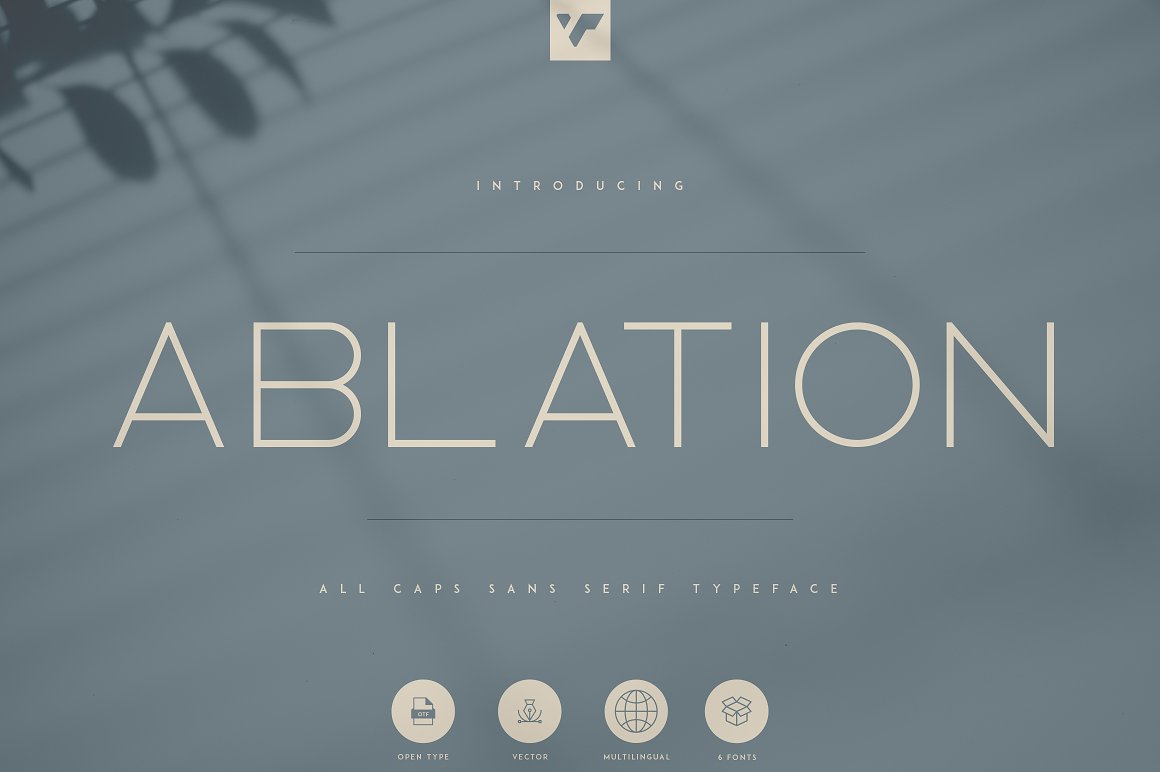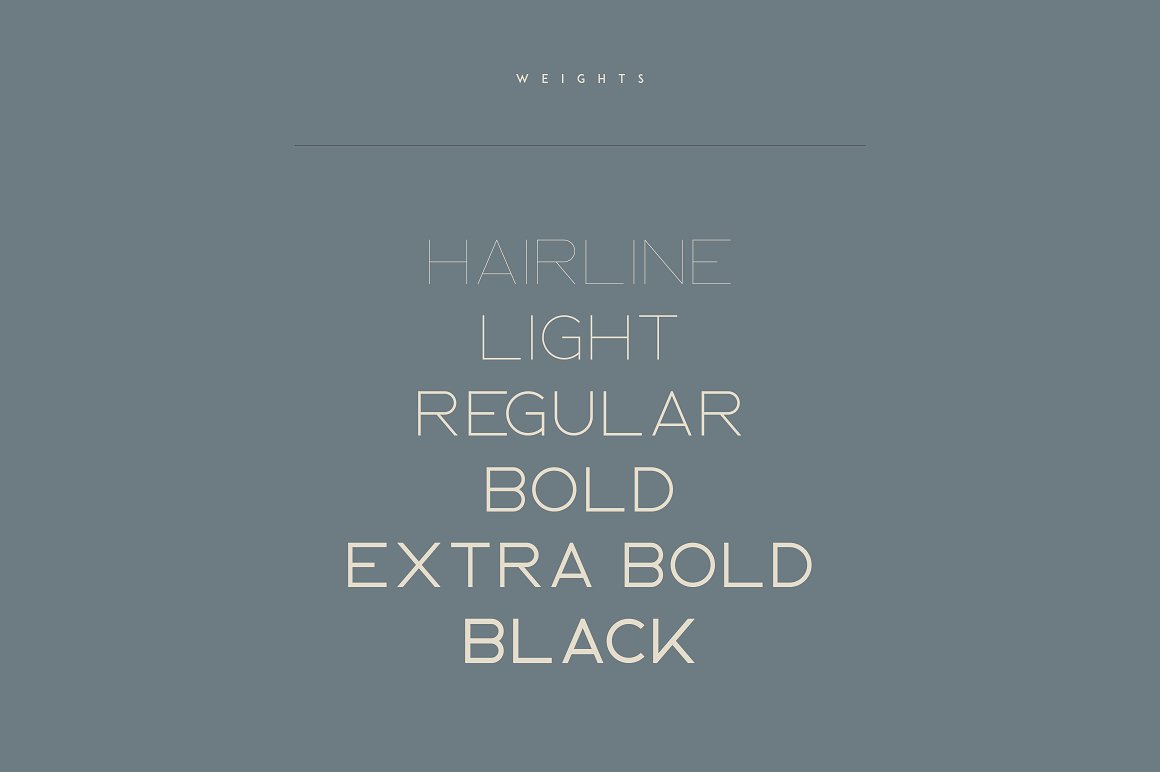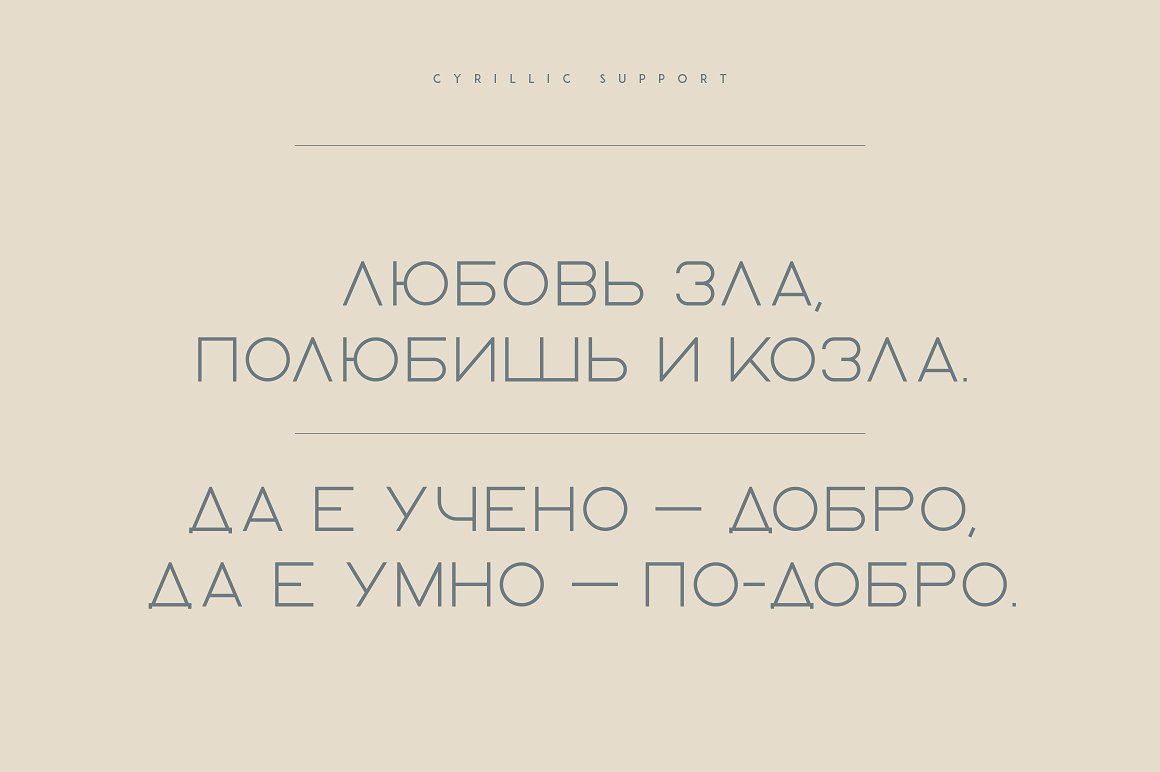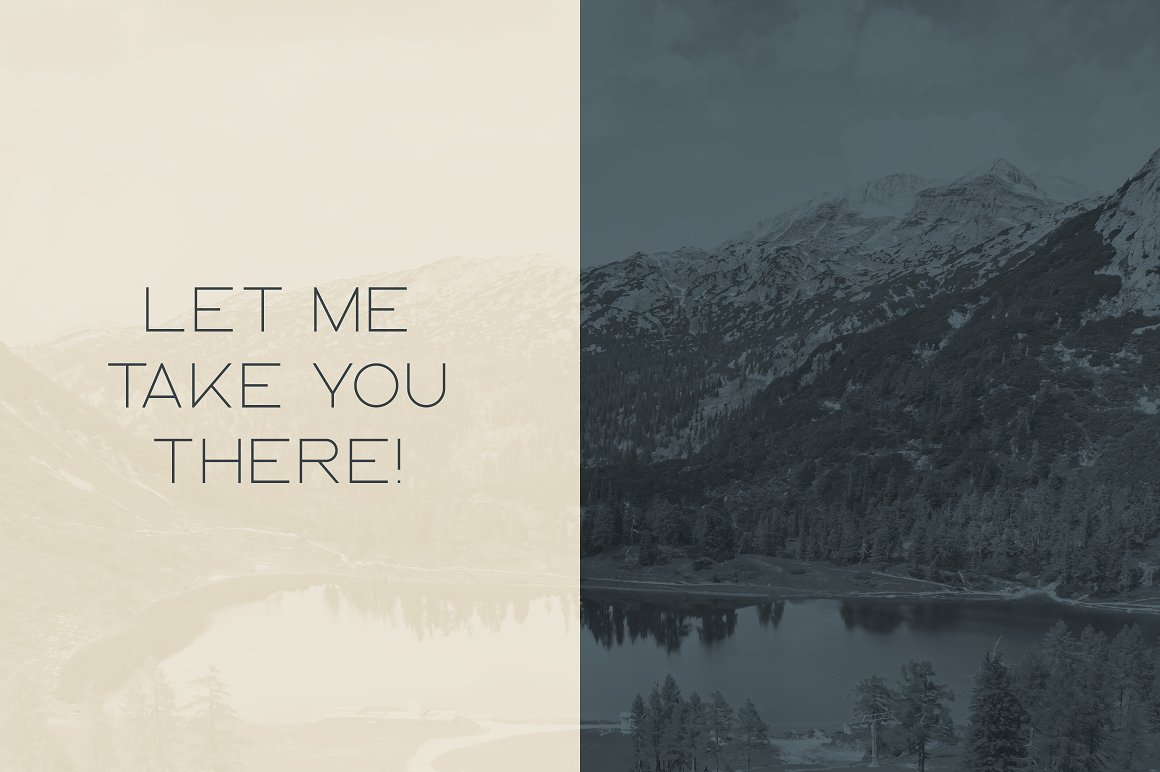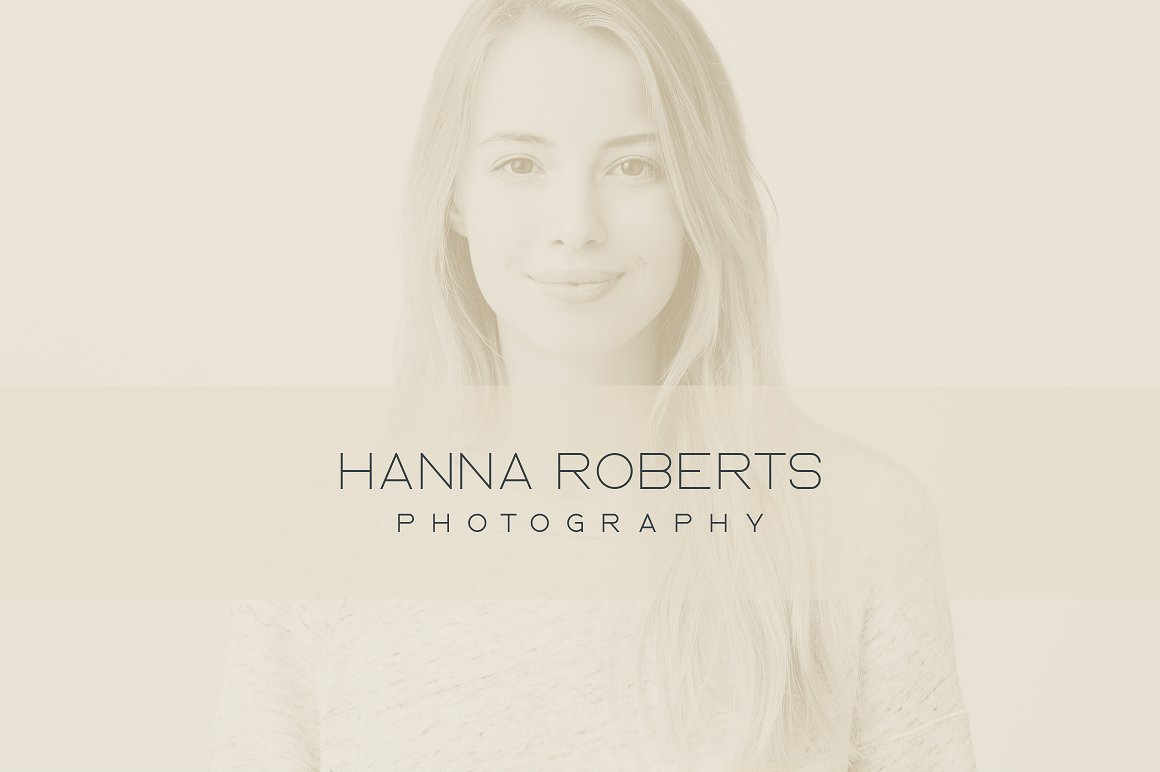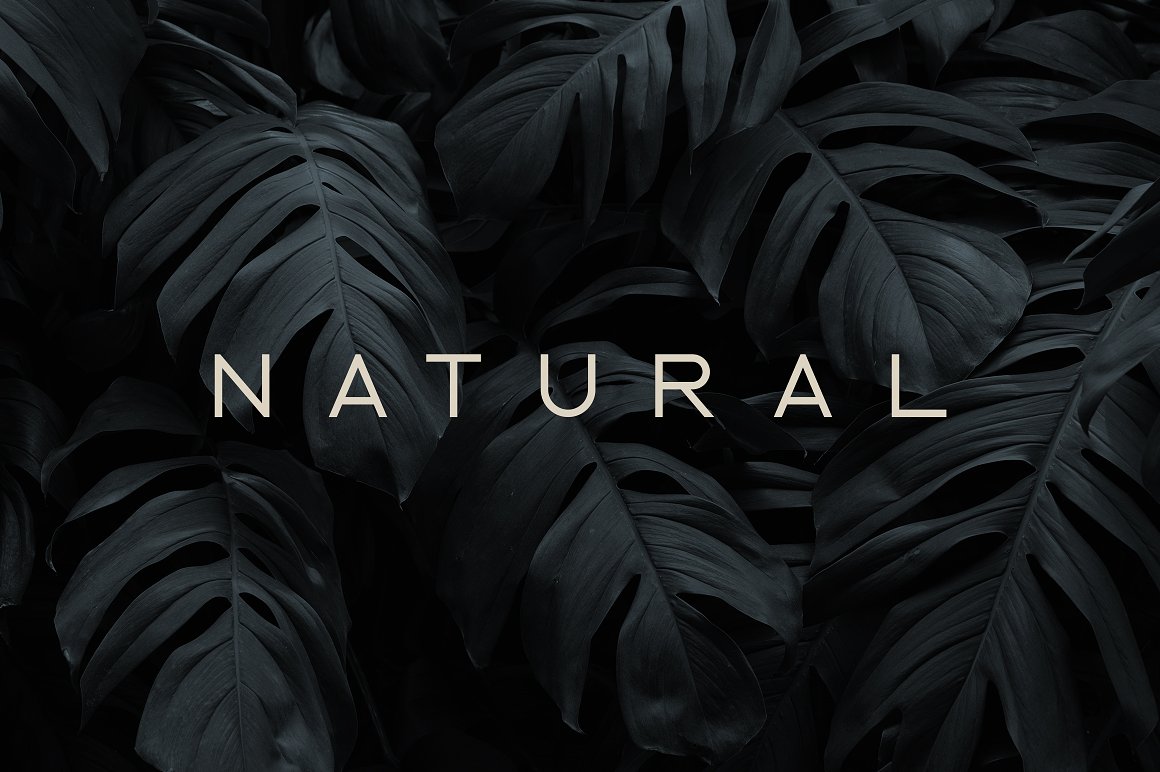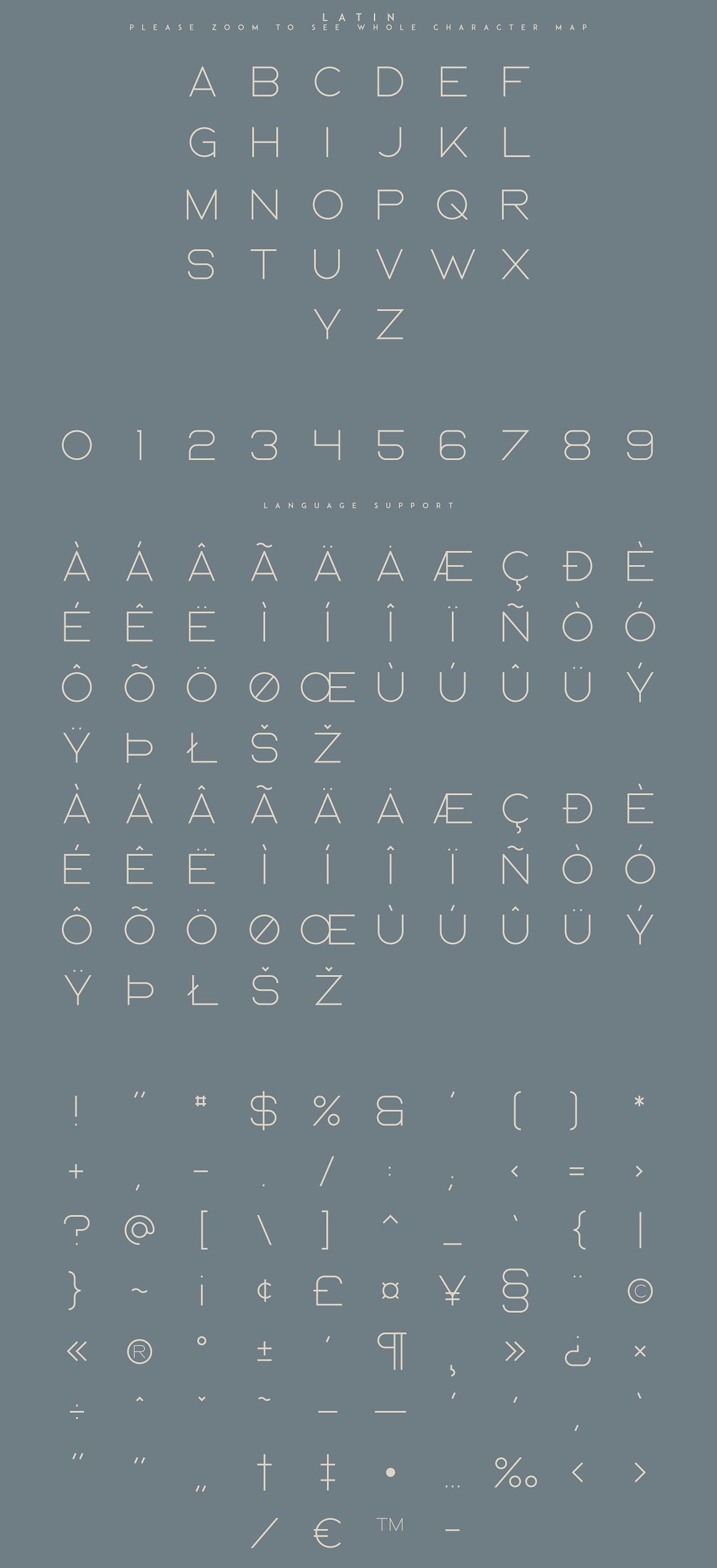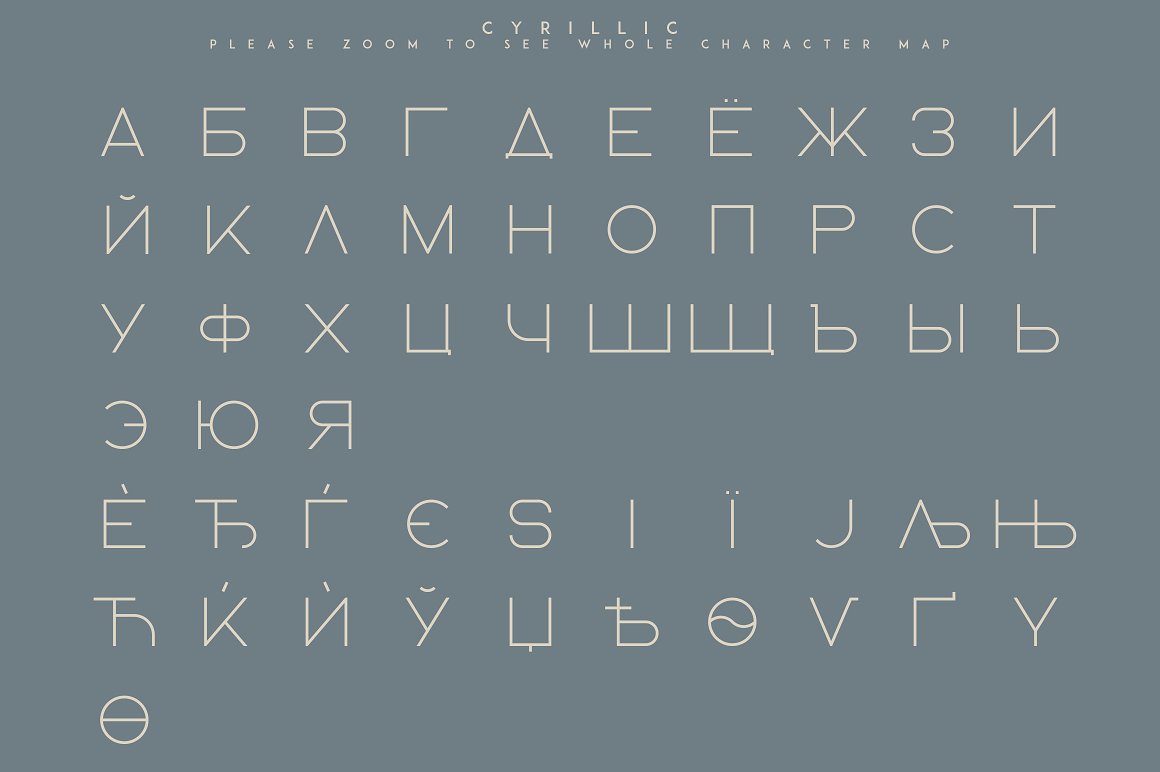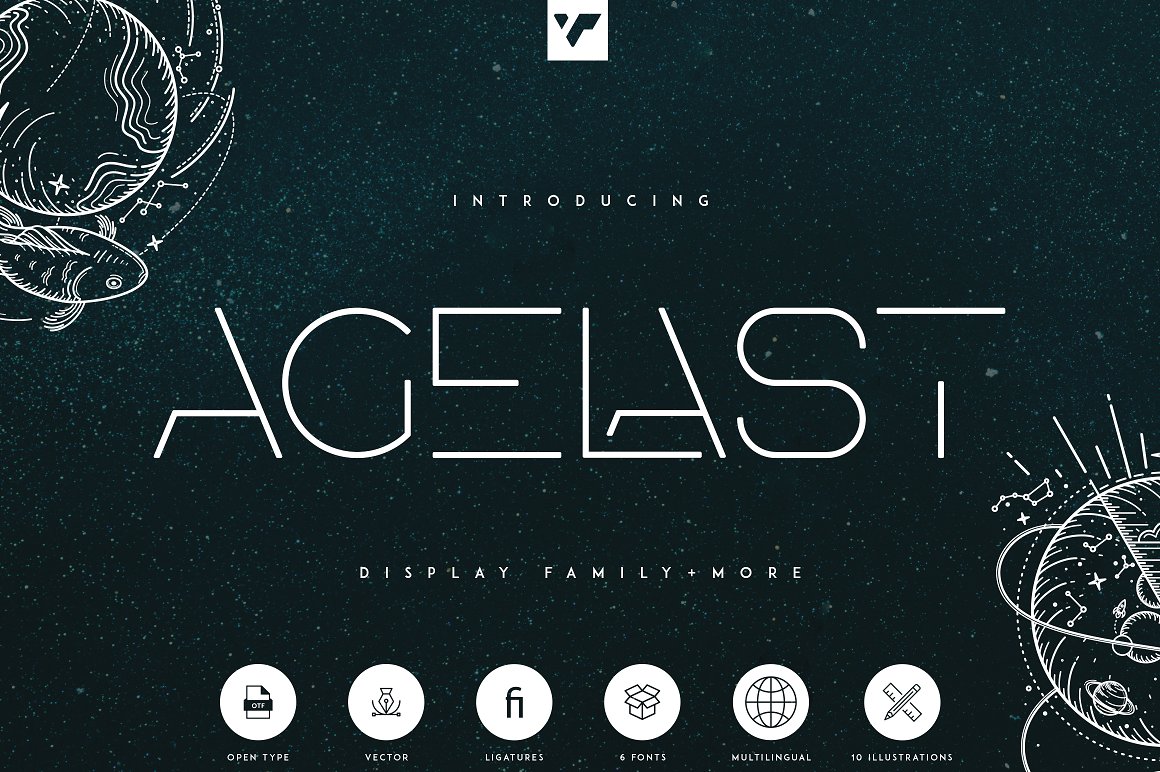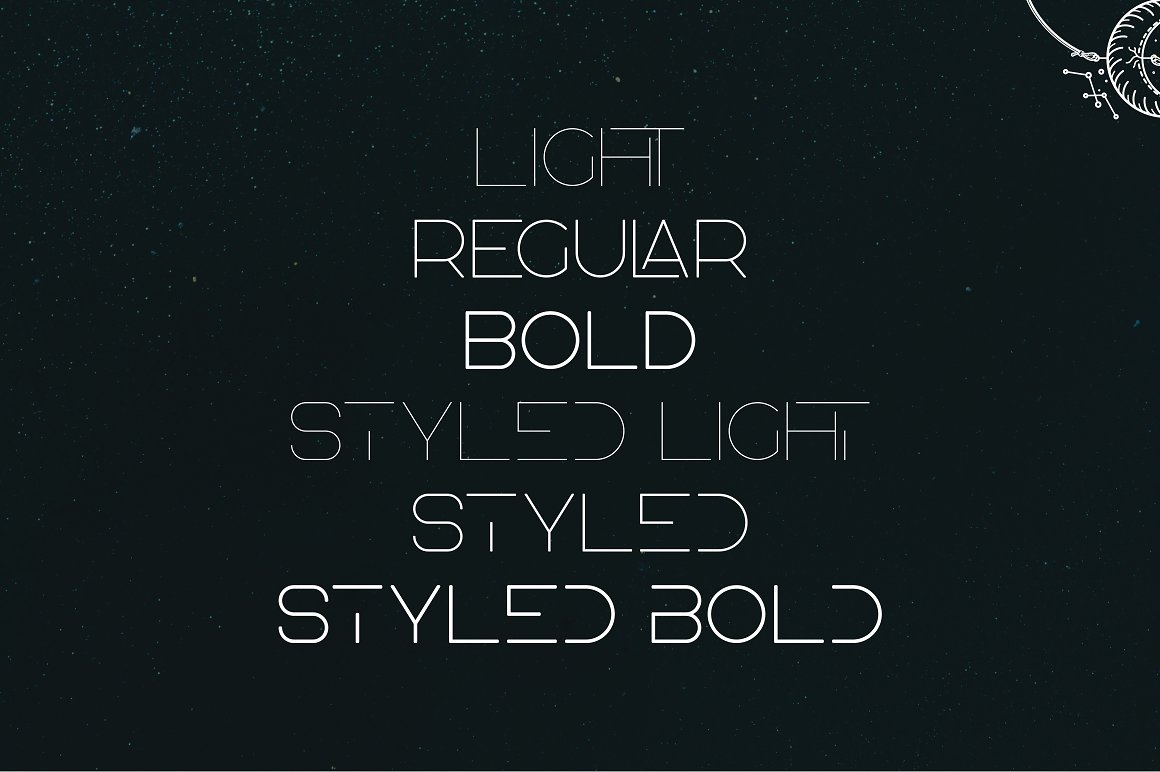
The Logo Font Bundle – 24 Fonts
The Logo Font Bundle is casual, futuristic collection loaded with 24 sans serif and display fonts, vector illustrations and multilingual support. They are very versatile fonts that works great in large and small sizes.
This collection from VPcreativeshop is perfect for branding projects, home-ware designs, product packaging, magazine headers – or simply as a stylish text overlay to any background image.
- 24 sans serif and display fonts in 6 families
- multilingual support
24 sans serif and display fonts in 6 families!
01. Ablation – Sans Serif Typeface from VPcreativeshop
Ablation is casual, clean typeface that contains 6 weights to enchant your next project. They have basic latin, advanced latin, basic Cyrillic and advanced Cyrillic character sets. Very versatile fonts that works great in large and small sizes.
Ablation is perfect for branding projects, home-ware designs, product packaging, magazine headers – or simply as a stylish text overlay to any background image.
- Uppercase, numeral, punctuation & Symbol
- Hairline
- Light
- Regular
- Bold
- Extra Bold
- Black
- Basic and advanced latin character sets
- Basic and advanced Cyrillic character sets
02. Equinox – Logo Font from VPcreativeshop
Equinox is futuristic, logo font loaded with alternate glyphs, ligatures and multilingual support. It’s a very versatile font that works great in large and small sizes.
Equinox is perfect for branding projects, home-ware designs, product packaging, magazine headers – or simply as a stylish text overlay to any background image.
- Uppercase, numeral, punctuation & Symbol
- Alternate glyphs
- Ligatures
- Multilingual support
03. Inertia – Logo Typeface | 5 weights from VPcreativeshop
Inertia is futuristic, logo typeface loaded with alternate glyphs, ligatures, 5 weights and multilingual support. It’s a very versatile font that works great in large and small sizes.
Inertia is perfect for branding projects, home-ware designs, product packaging, magazine headers – or simply as a stylish text overlay to any background image.
- Uppercase, numeral, punctuation & Symbol
- Hairline
- Light
- Regular
- Bold
- Black
- Alternate glyphs
- Ligatures
- Multilingual support
04. Republiko – Display Typeface from VPcreativeshop
Repubiko is bold, clean typeface with 4 styles and multilingual support. It’s a very versatile font that works great in large and small sizes.
Republiko is perfect for branding projects, home-ware designs, product packaging, magazine headers – or simply as a stylish text overlay to any background image.
- Uppercase, numeral, punctuation & Symbol
- Regular
- Outline One
- Outline Two
- Outline Three
- Multilingual support
05. Agelast Display Family + 10 Graphics from VPcreativeshop
Agelast is clean, futuristic typeface with 6 fonts, 10 breathtaking illustrations, 71 photoshop styles and multilingual support. It’s a very versatile font that works great in large and small sizes.
Agelast is perfect for branding projects, home-ware designs, product packaging, magazine headers – or simply as a stylish text overlay to any background image.
- Uppercase, numeral, punctuation & Symbol
- 71 Photoshop styles
- Ligatures
- Multilingual support
06. Zink – Display Typeface from VPcreativeshop
Zink is bold, clean typeface with 2 font styles, ligatures and multilingual support. It’s a very versatile font that works great in large and small sizes.
Zink is perfect for branding projects, home-ware designs, product packaging, magazine headers – or simply as a stylish text overlay to any background image.
- Uppercase, numeral, punctuation & Symbol
- Regular
- Outline
- Ligatures
- Multilingual support